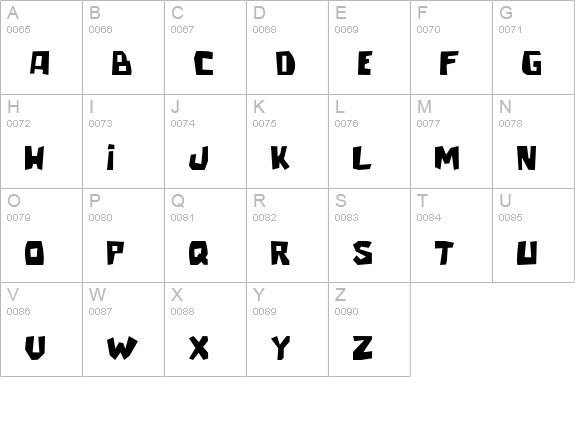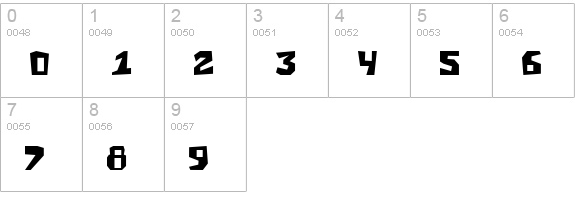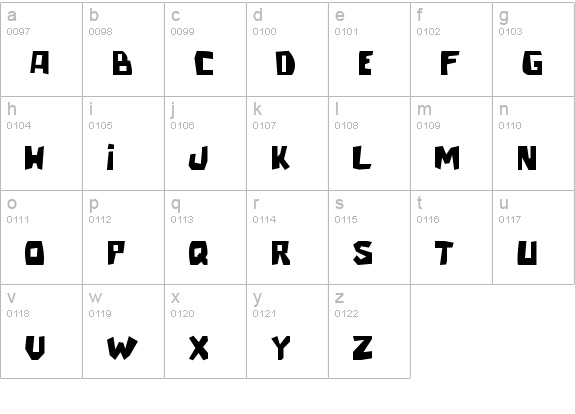
Introducing Talacha font - a dynamic and modern typeface that is sure to make your designs stand out! With its sleek lines and contemporary feel, Talacha is perfect for a wide range of projects, from branding to packaging and everything in between. What sets Talacha font apart is not only its stylish appearance but also the fact that it is completely free to use. Yes, you read that right - this stunning font is available for free download at FontsMarket.com. So why wait? Elevate your designs with Talacha font today and make a bold statement with your typography!